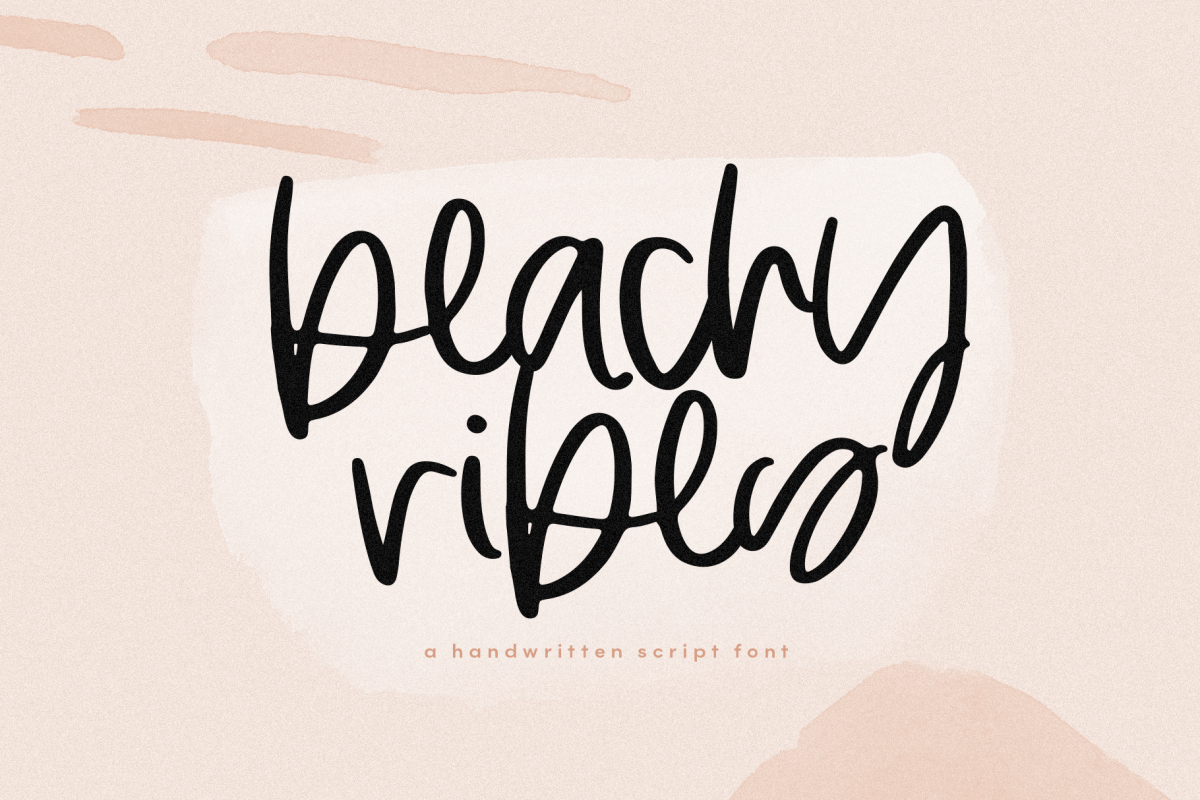
Beachy Vibes - Handwritten Script Font with Extras
BeachyVibes
Beachy Vibes is handwritten font with a modern calligraphy feel.
The letters are effortlessly chic.
Beachy Vibes is perfect for modern projects, headings, blogs, logos, brandings, invitations and more!